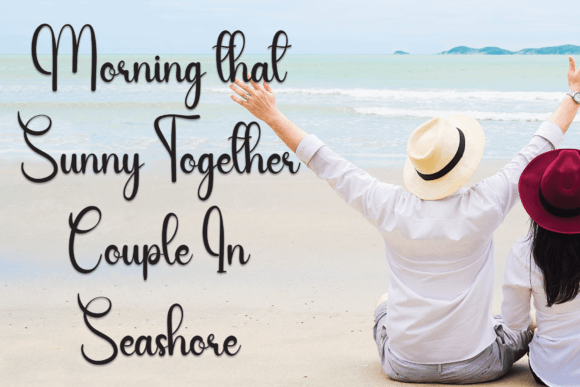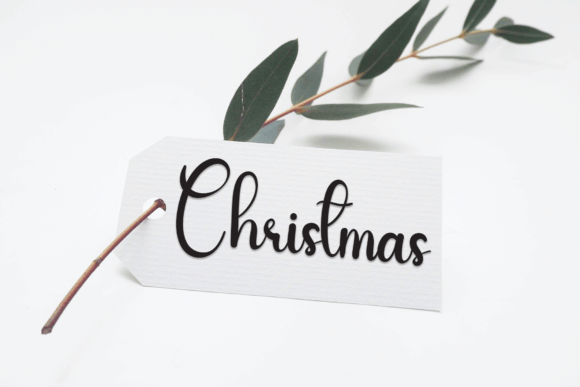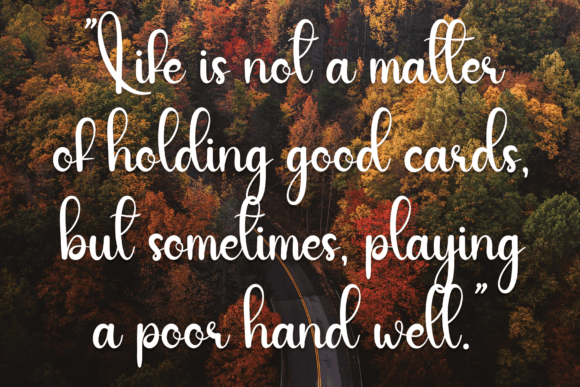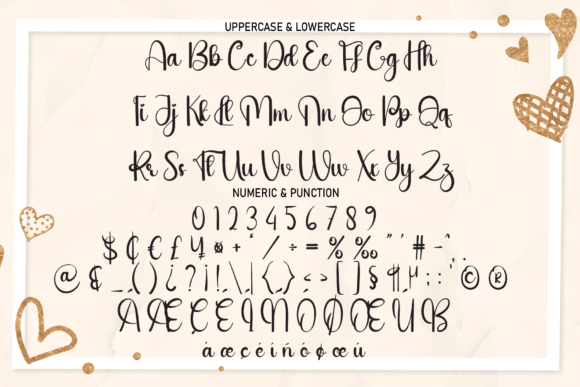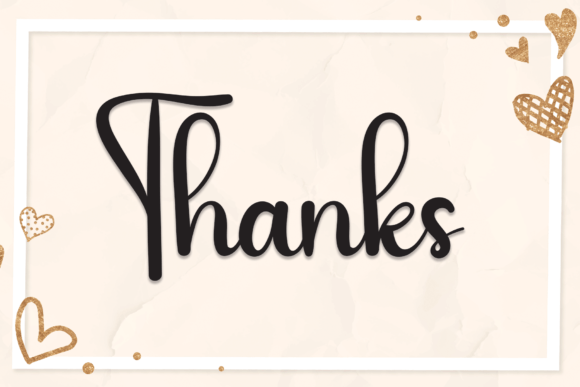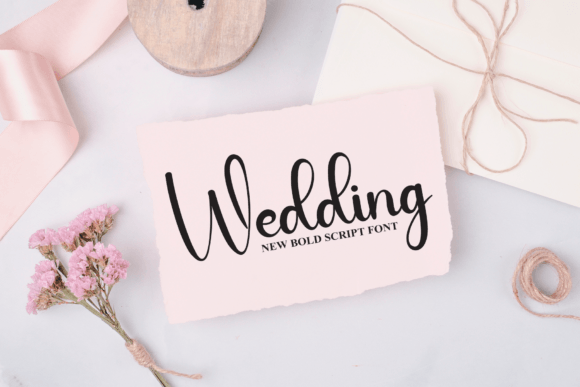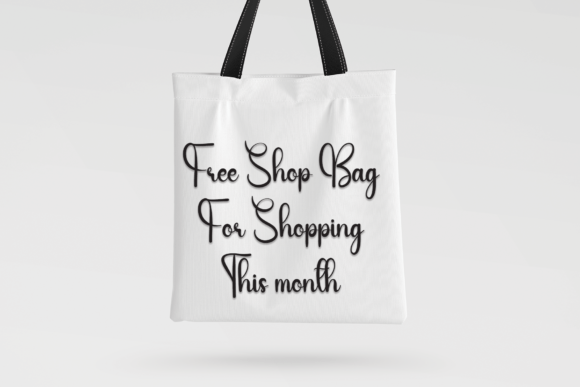
Happy Valentine Font
About Happy Valentine Font
Happy Valentine font is a beautifully crafted handwritten typeface designed to add elegance and charm to your romantic and creative projects. With its smooth, flowing strokes, this font captures the warmth and intimacy perfect for occasions like weddings, Valentine’s Day, and heartfelt expressions.
Ideal for Wedding Invitations and Romantic Stationery
This font works wonderfully for wedding invitations, save-the-date cards, and other romantic stationery. Its elegant style brings a personal touch that enhances the beauty and emotion of special moments, making your invitations truly memorable.
Perfect for Social Media and Branding
Happy Valentinefont is also great for social media posts and branding projects, especially those focused on love, relationships, or special celebrations. Use it to create logos, advertisements, and engaging content that stands out with its handcrafted, heartfelt look.
Excellent for Product Packaging and Labels
Use Happy Valentinefont on product packaging and labels to give your products a delicate, romantic vibe. This style is particularly well-suited for gift packaging, beauty products, and artisanal goods that aim to convey care and quality.
Versatile for Many Creative Uses
Beyond romantic themes, this font adapts well to various design projects such as photography watermarks, posters, wall displays, and invitations. Its versatility ensures that it complements many different styles while maintaining a warm, inviting feel.
Why Choose Happy Valentine Font?
Choosing Happy Valentinefont means choosing a font that balances elegance with approachability. It adds a handcrafted, genuine feel to your designs and helps make your creative projects stand out with emotional impact. Add this font to your design collection to bring a loving touch to your work.